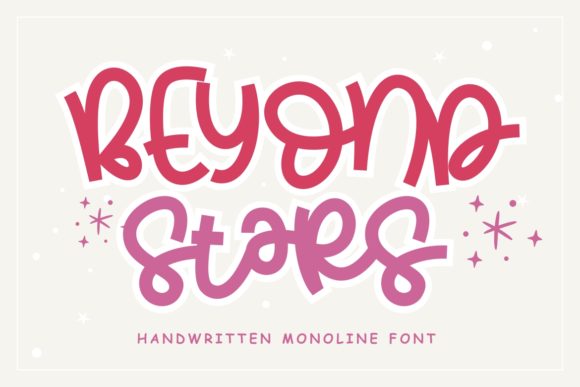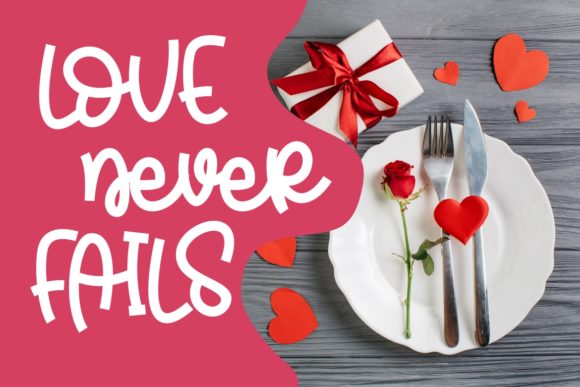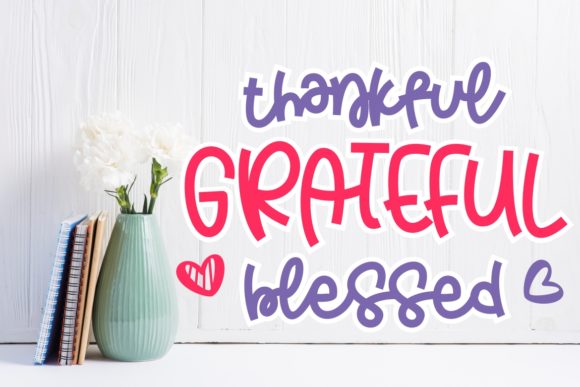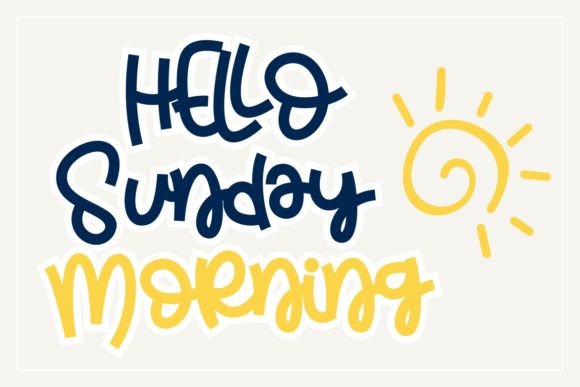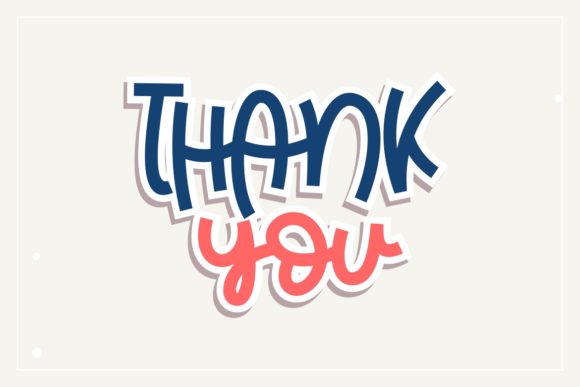
Beyond Stars Font
About Beyond Stars Font
Beyond Stars is a quirky handwritten font with a full set characters and multilingual support. This font is perfect for quotes, shirt designs, websites, branding, logos, invitations and more!